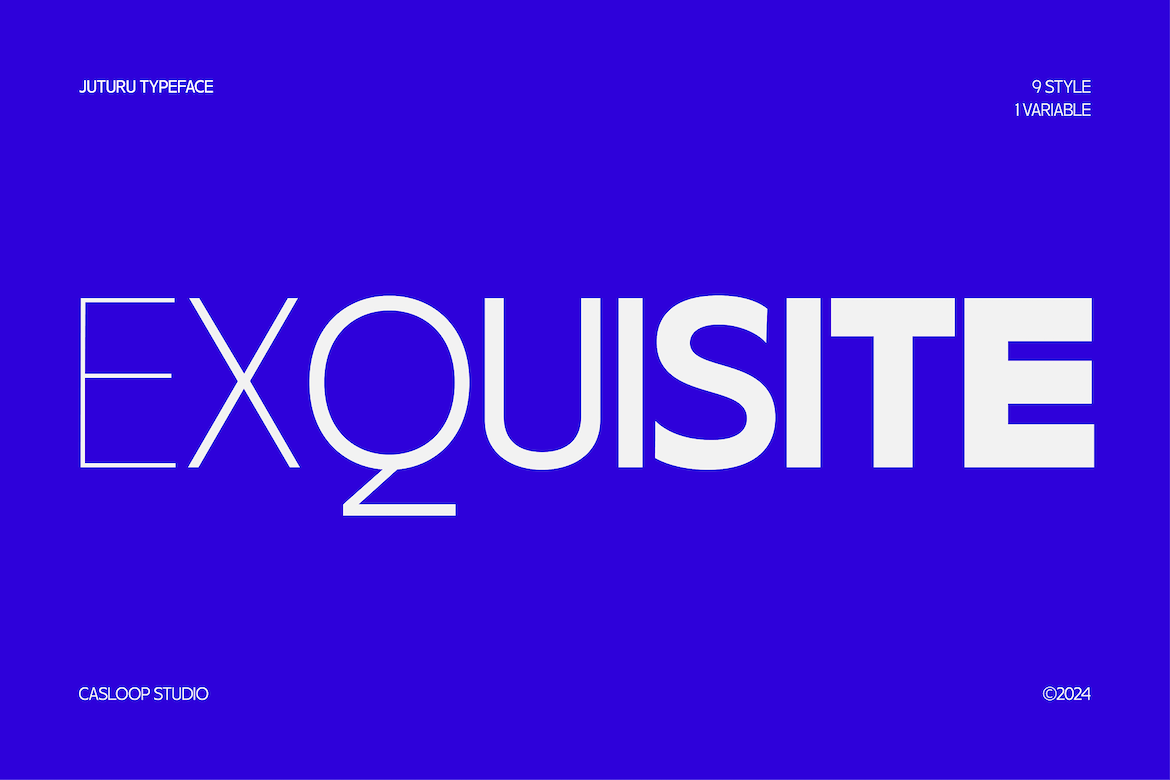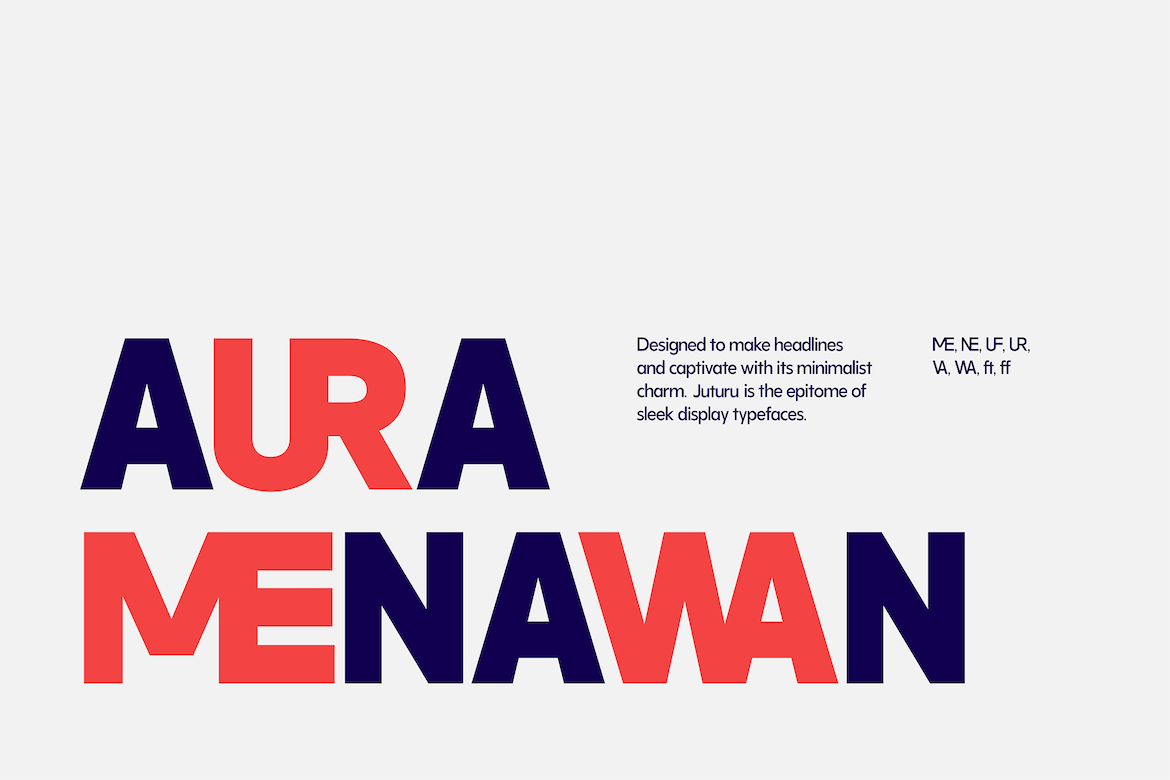
Juturu – Futur Neo Grotesque Gen Z Variable Tech Font
Juturu – Futur Neo Grotesque Gen Z Variable Tech Font is a versatile typeface ideal for various projects, including Sans-Serif, logos, branding, posters, blog headers, advertisements. The free version includes a full set of uppercase and lowercase letters, available in OTF, TTF, WOFF, WOFF2 format.